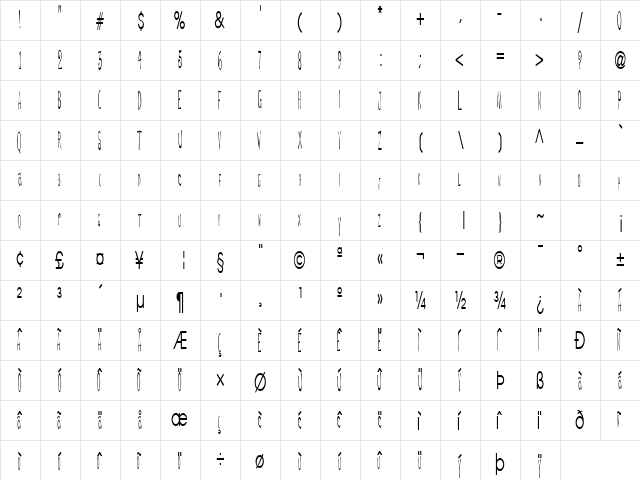
De Regular Font Preview
De Regular
De Regular Font Details
Design Context for De Typeface
De offers clean, dependable letterforms without strong stylistic allegiance, making it a practical choice for designers who need flexibility.